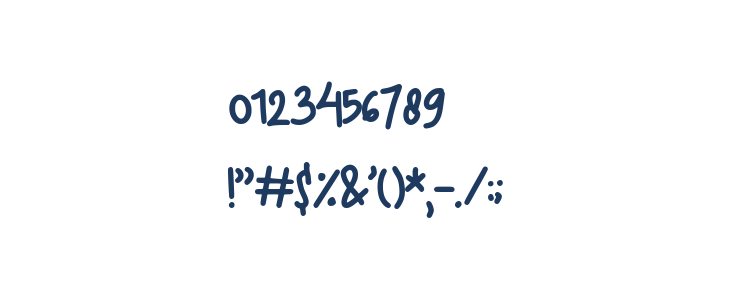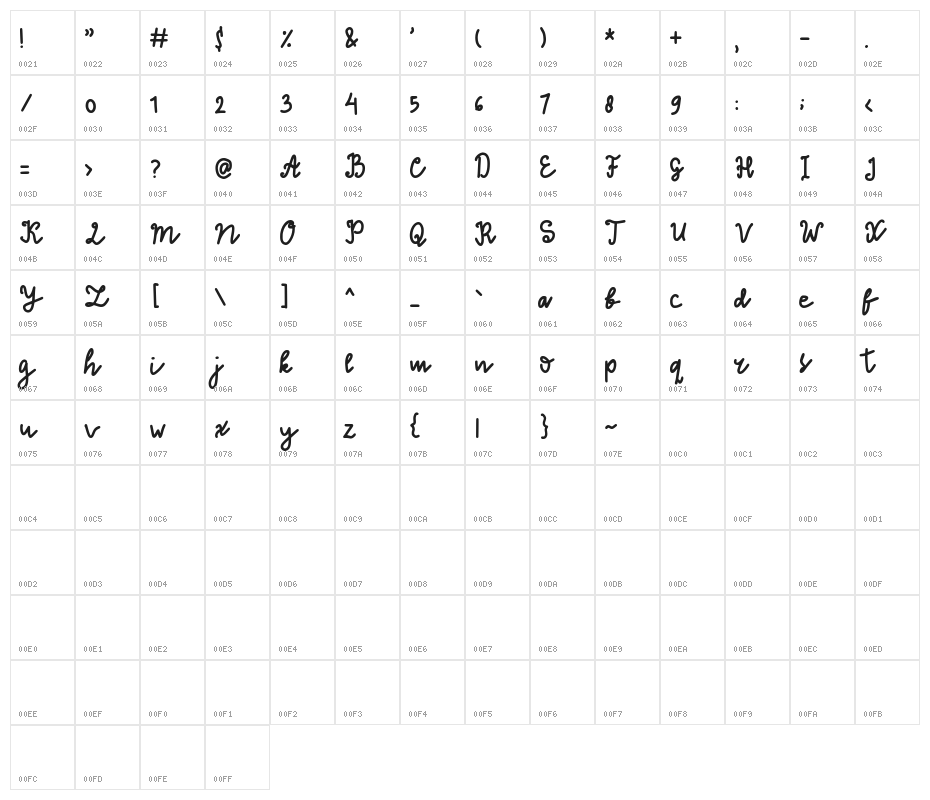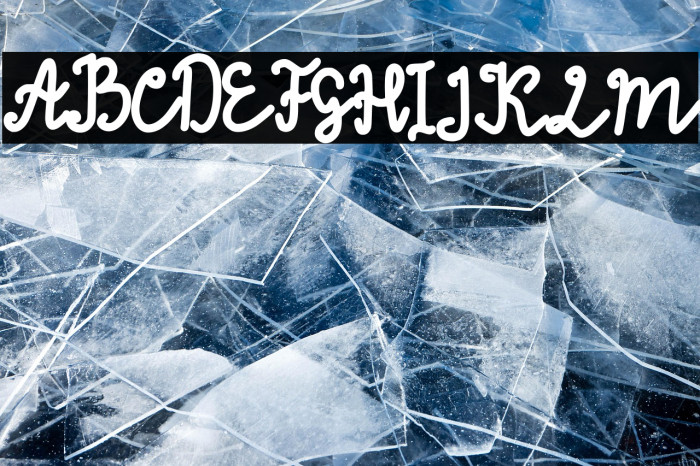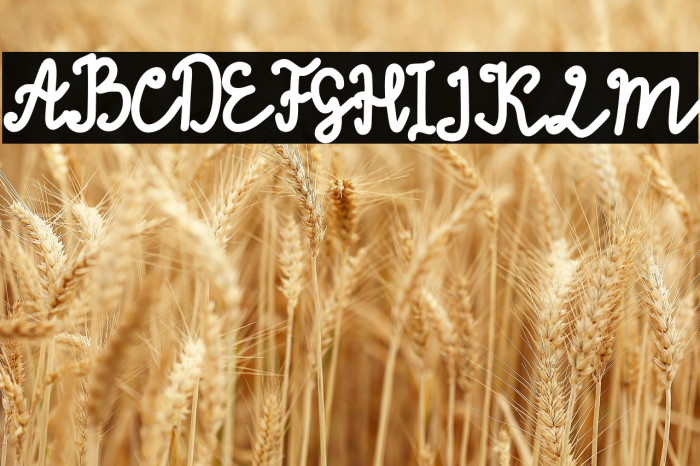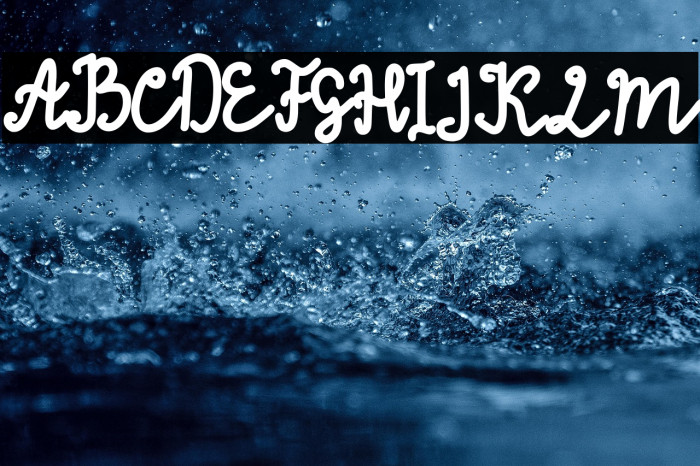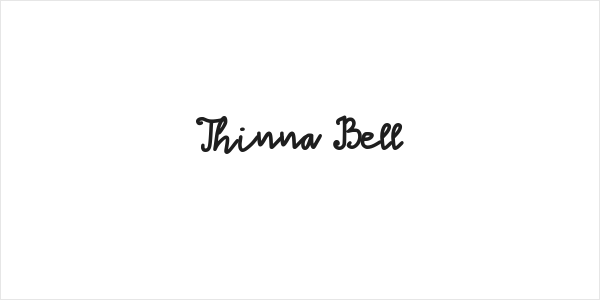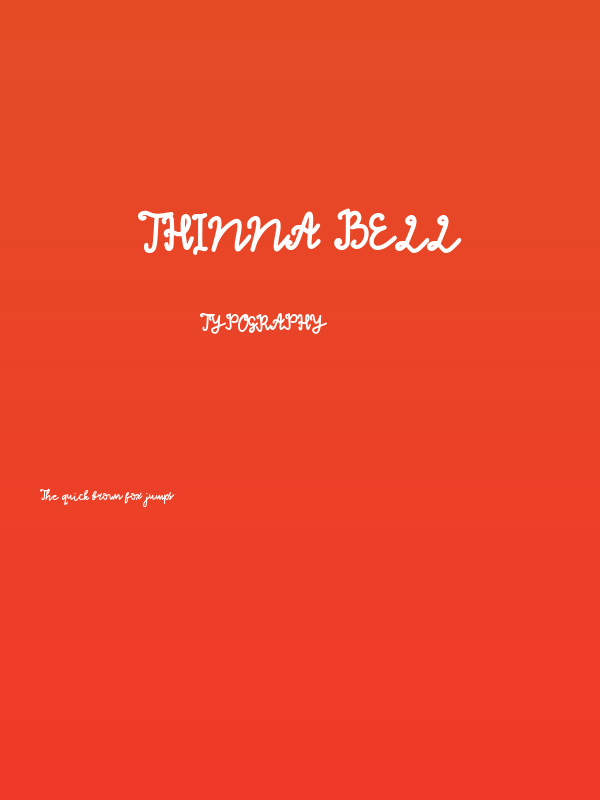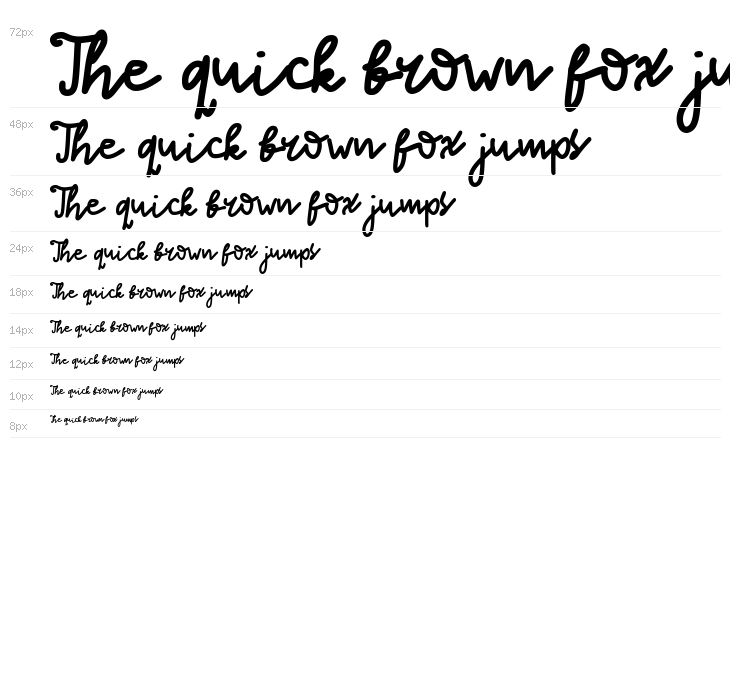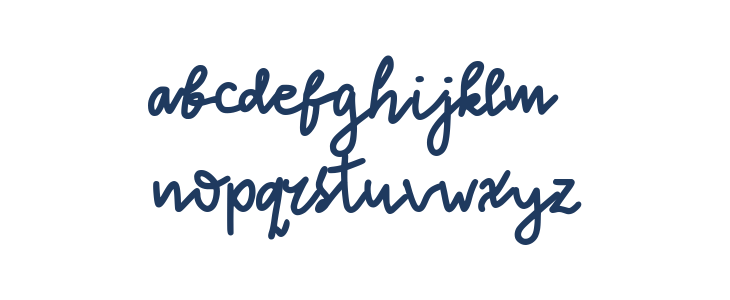
Thinna Bell Font
Thinna Bell Description
This font features a playful and dynamic script style with a handwritten appearance. The characters are fluid and interconnected, giving a sense of movement and personality. The uppercase letters are bold and slightly whimsical, while the lowercase letters maintain a consistent flow with elegant loops and curves. The numerals are distinct and maintain the same playful style, making them easily recognizable. Special characters are integrated seamlessly, enhancing the font's versatility. This font is perfect for projects that require a personal touch or a creative flair.